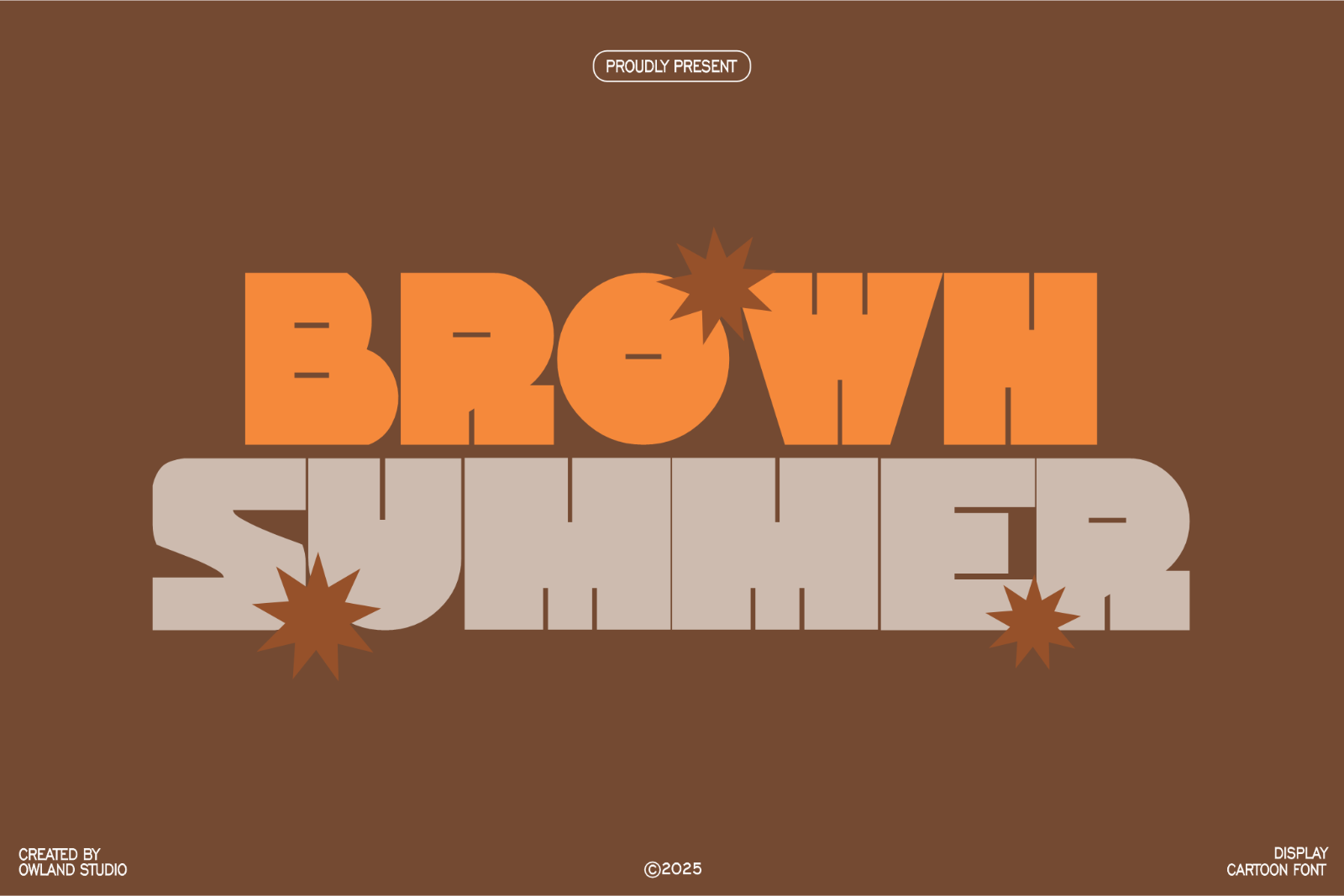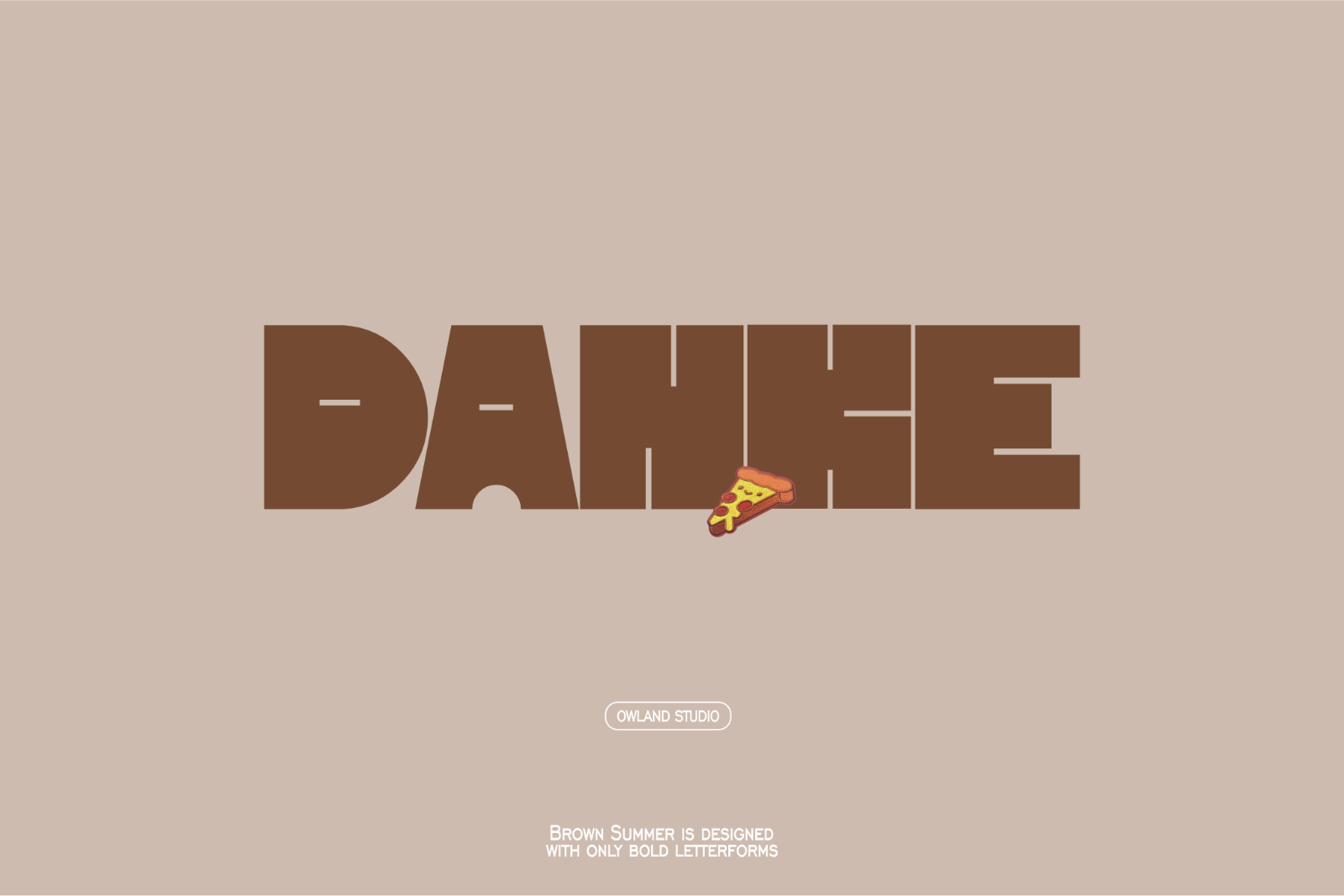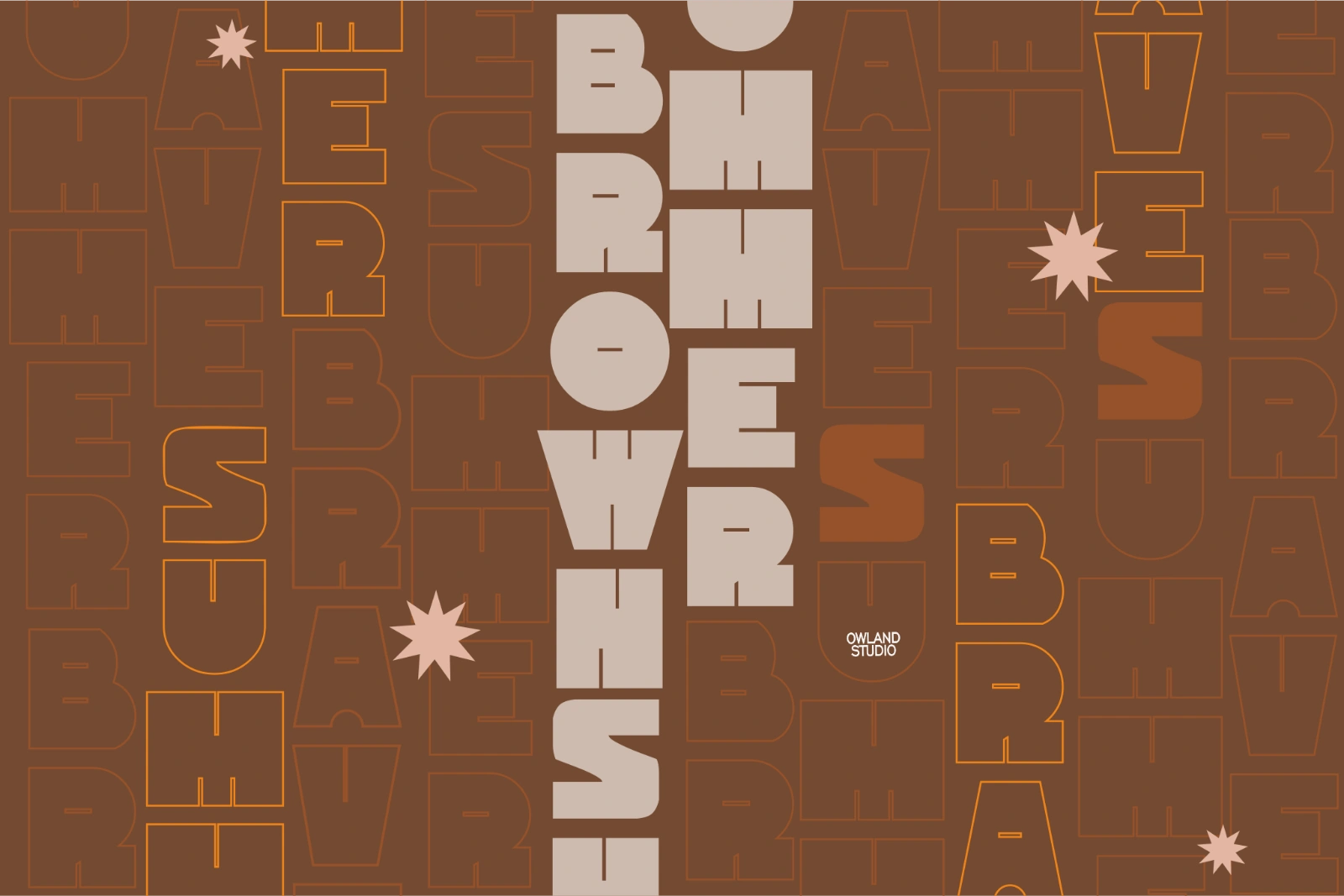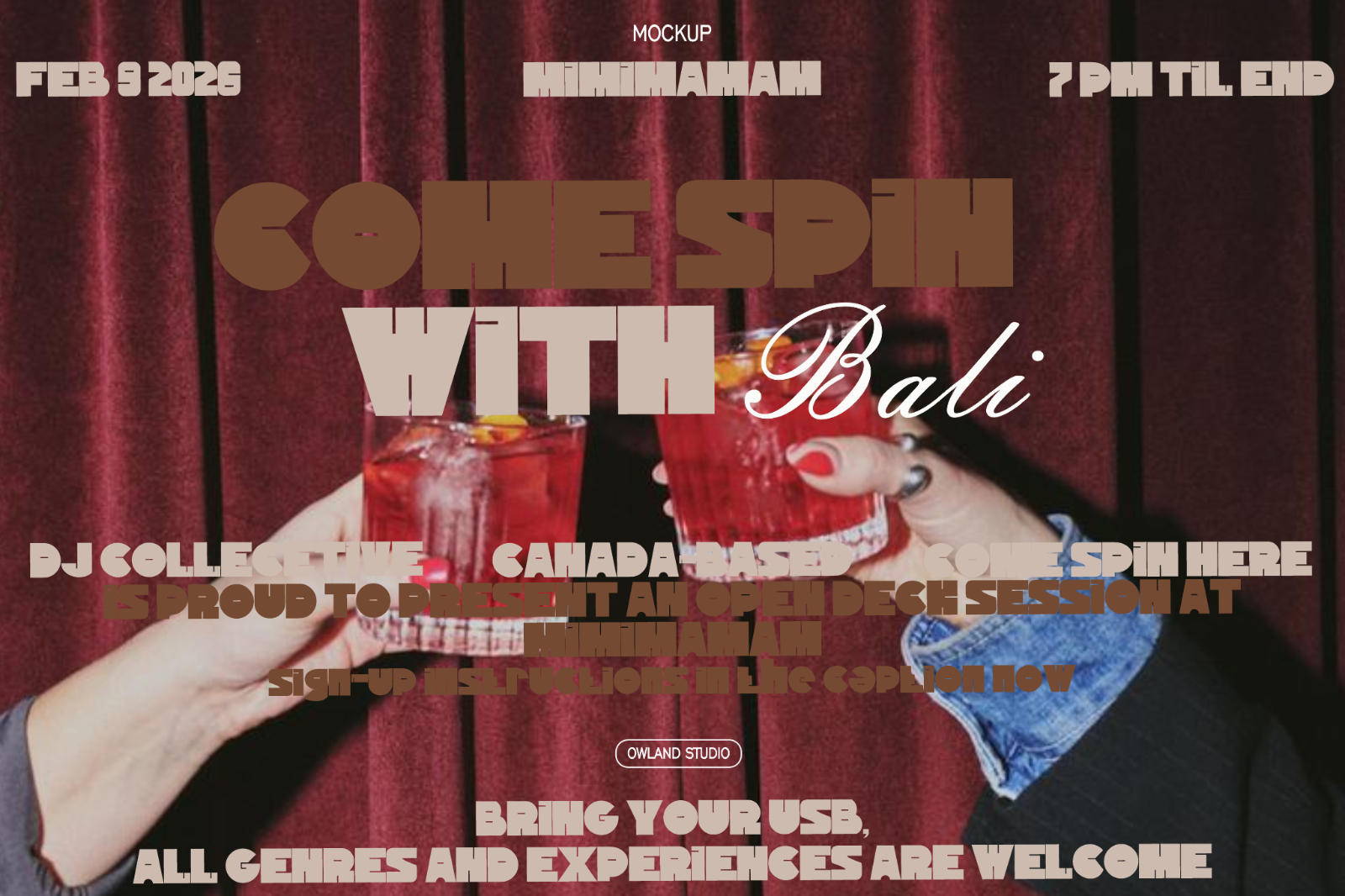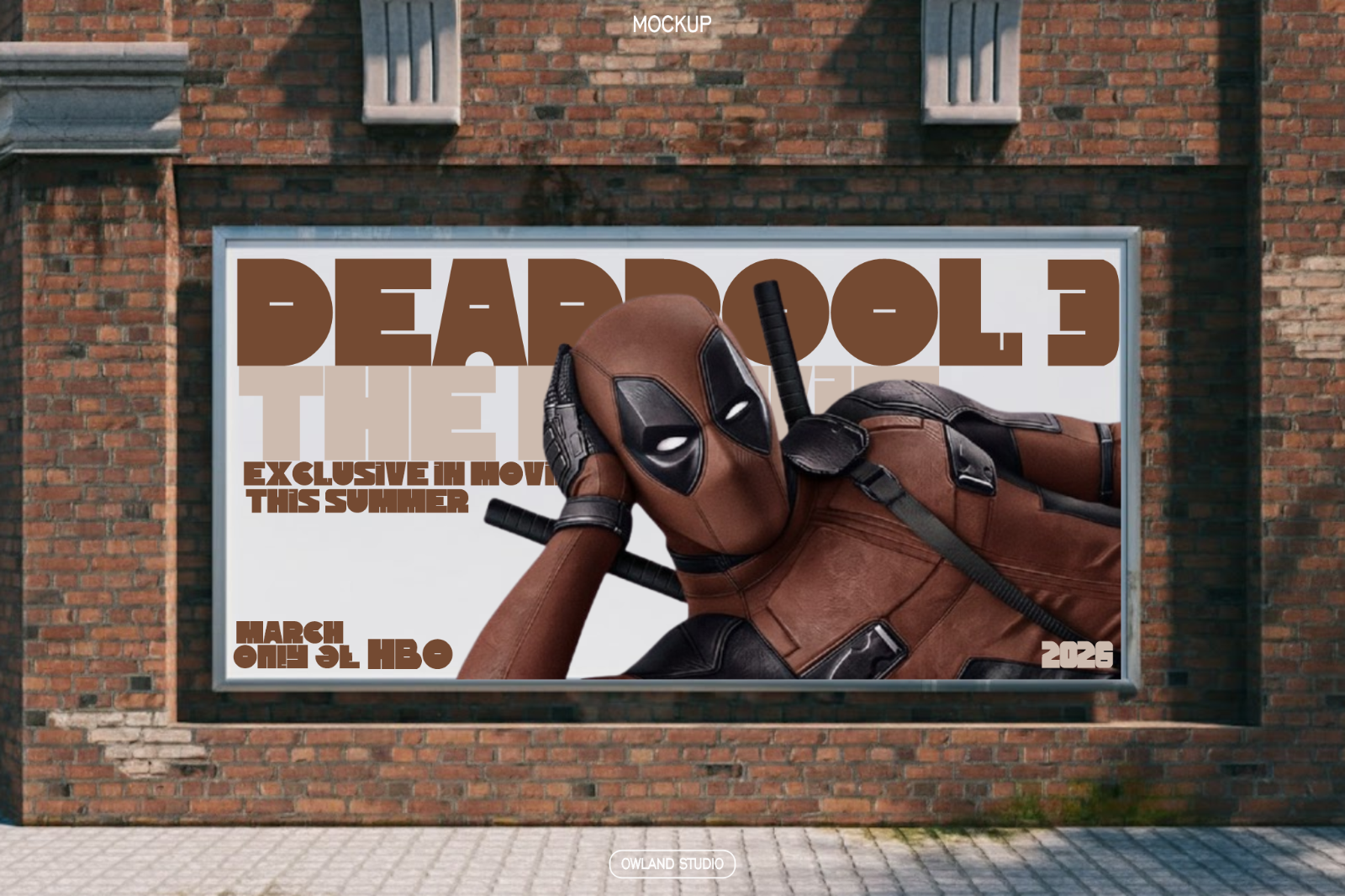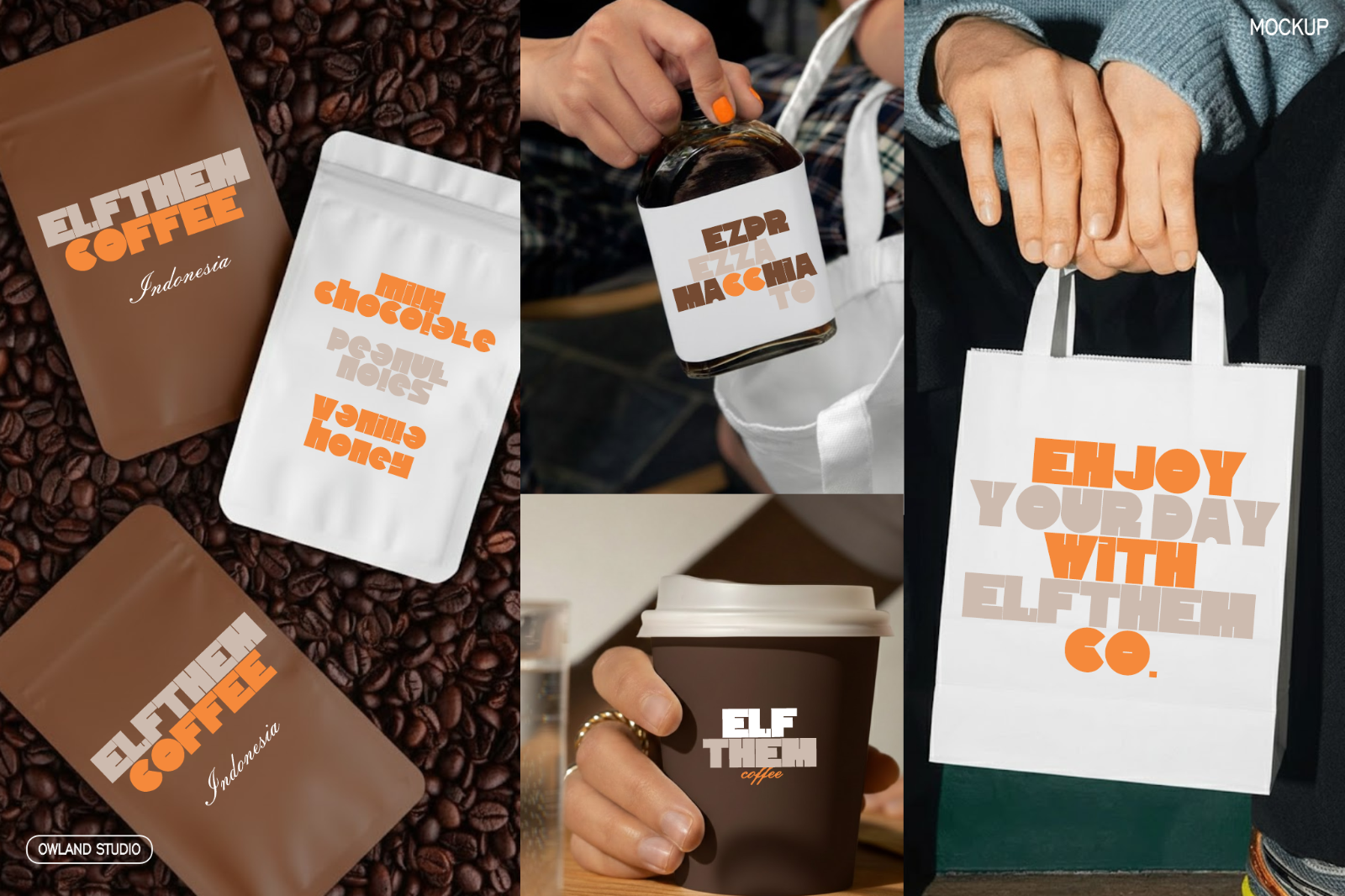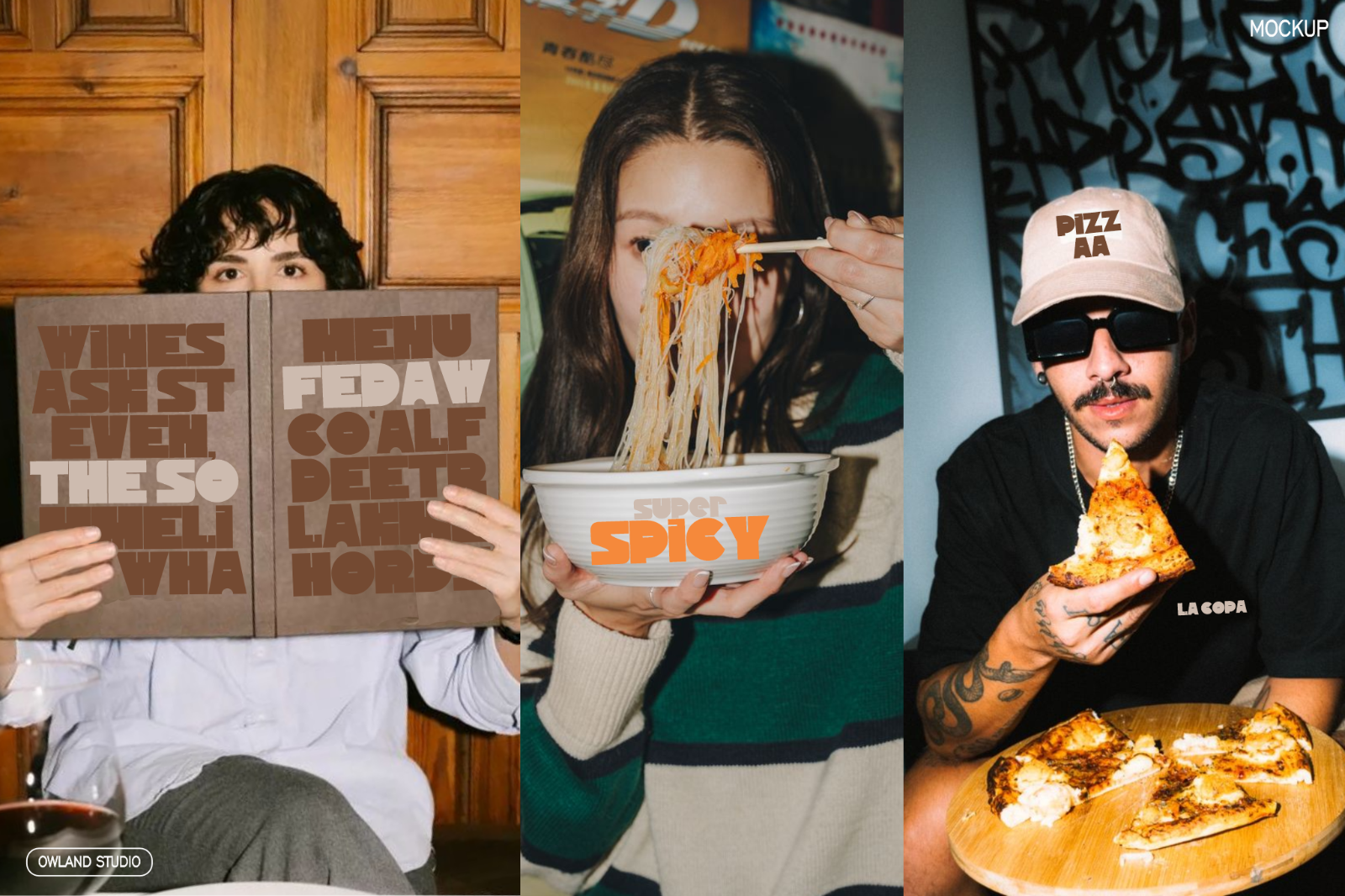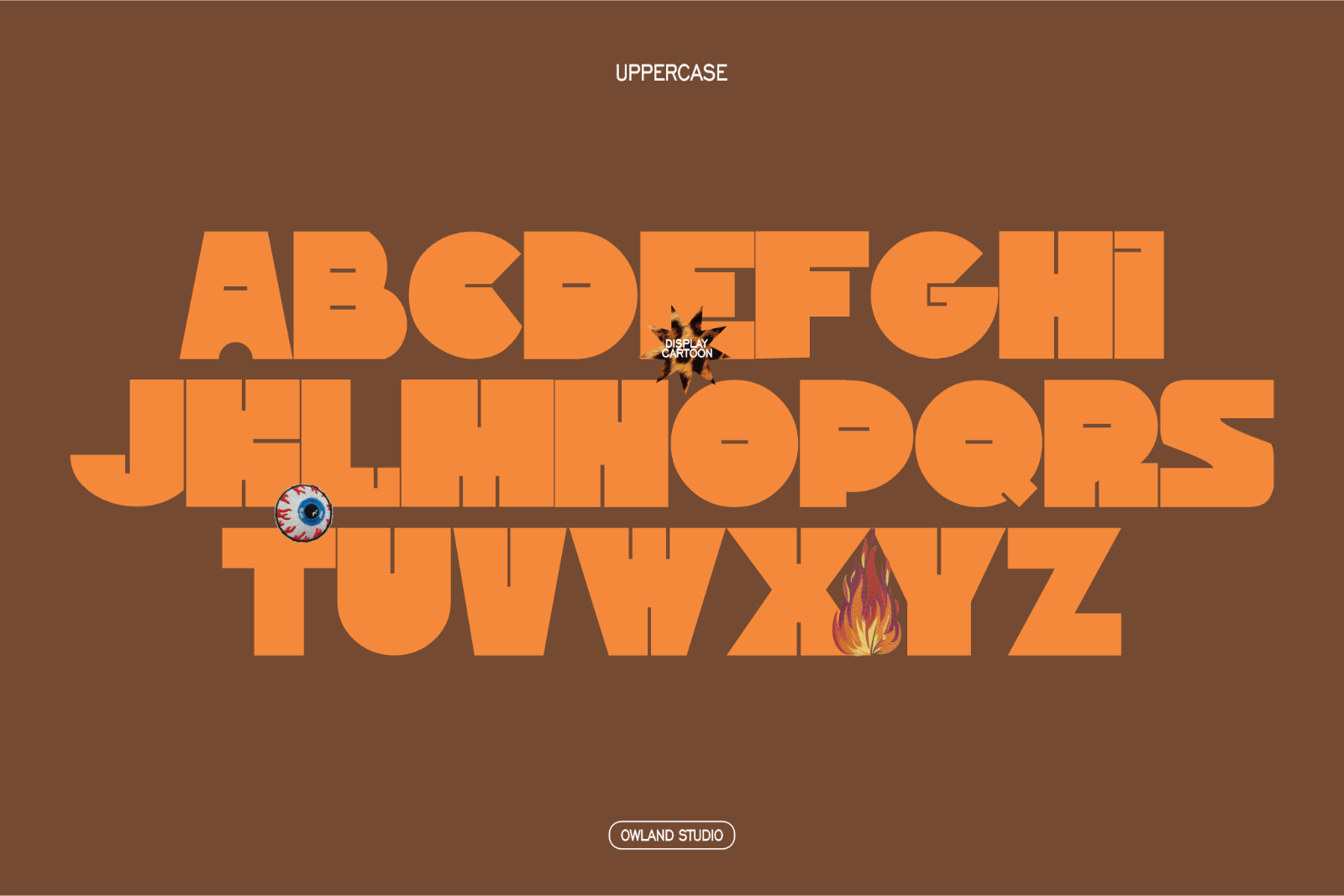
Brown Summer is a bold and luxurious display font with bold, rounded, and playful letterforms—perfect for designers looking to add a sweet and eye-catching touch to their projects. Inspired by the game series, this font features a fun, friendly, and modern aesthetic that's ideal for both digital and print design.
Perfect for headlines, branding, posters, and any design that requires a bold and cool look.
Brown Summer is designed with only bold letterforms. Crafted with precise details, this font delivers a strong, confident, and contemporary look.